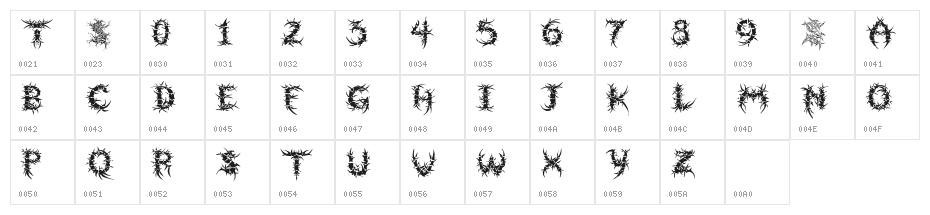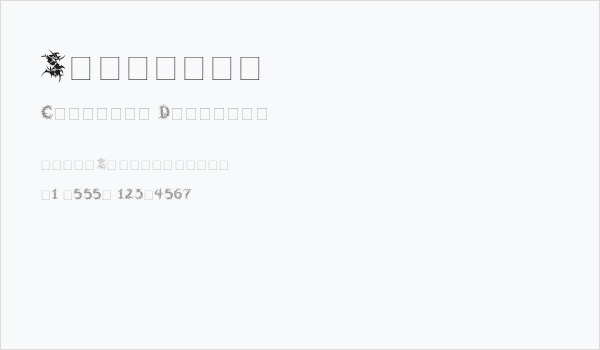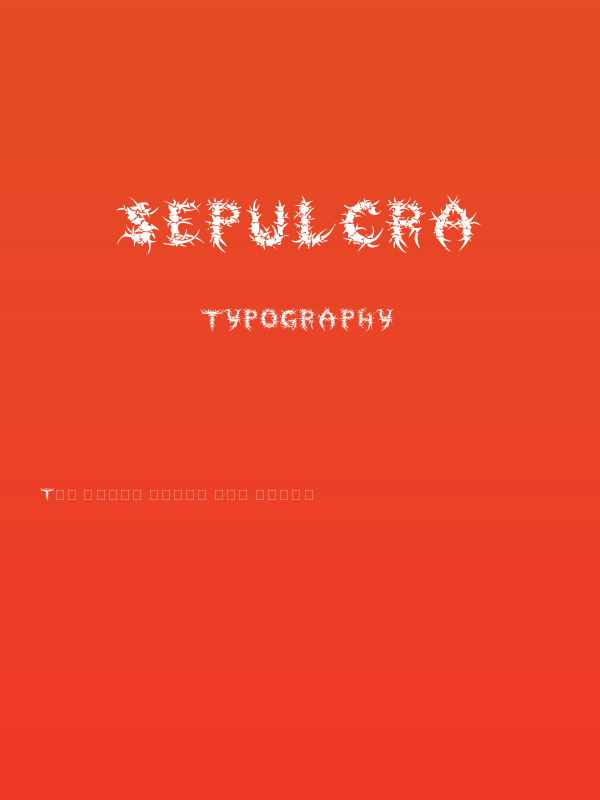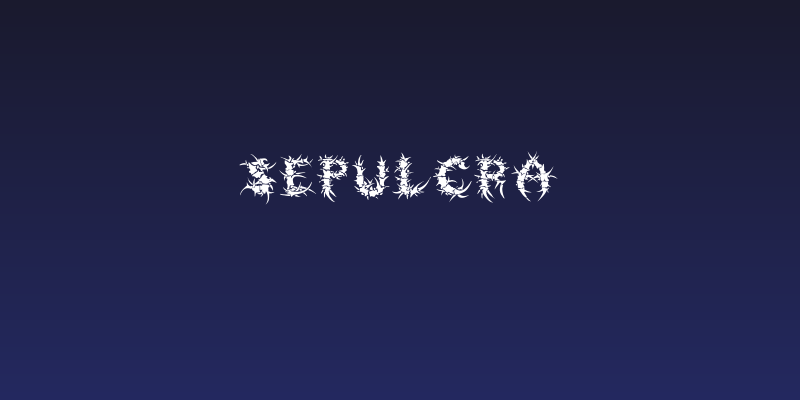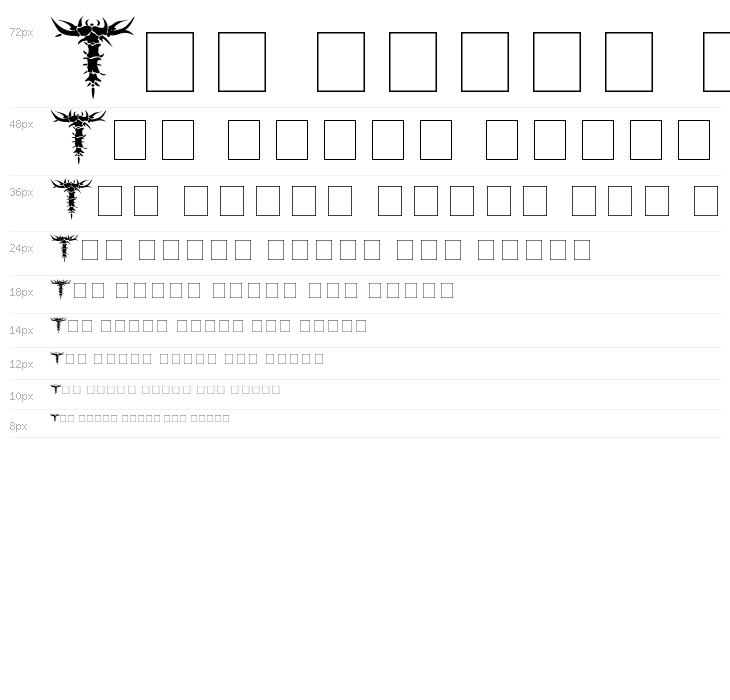
Sepulcra Font
Sepulcra Description
This font is a highly decorative and intricate design, featuring sharp, thorn-like embellishments that give it a gothic and edgy appearance. Each character is surrounded by elaborate, spiky details that create a sense of movement and intensity. The font's unique style makes it stand out, with a dark and mysterious aura that is perfect for creating dramatic and impactful visual statements. The characters are bold and complex, making them suitable for large-scale use where their details can be fully appreciated.
| Overall Style | Gothic, Decorative |
| Proposed Projects | Ideal for horror-themed posters, album covers, gothic event invitations, and any project requiring a dramatic and intense visual impact. |